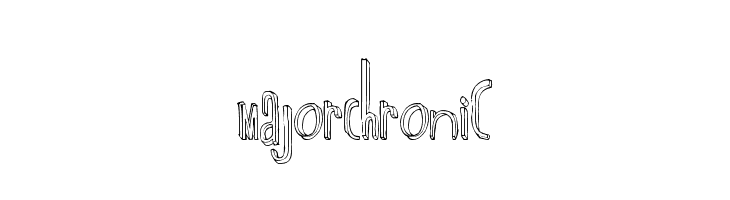
A decorative, hand-drawn font with swirling, sketch-like strokes.
A hand-drawn, sketch-like font with rough, edgy strokes.
A chaotic, sketch-like font with a hand-drawn, energetic style.
A hand-drawn, sketch-like font with a casual and informal feel.
A playful, hand-drawn font with a sketch-like, double-line style.
A bold, 3D-effect font with sketch-like strokes and a playful, artistic style.
A playful, hand-drawn font with a sketch-like texture and bold outlines.
A playful, hand-drawn font with bold, rounded letters and a sketchy outline.
A bold, hand-drawn font with textured, sketch-like characters.